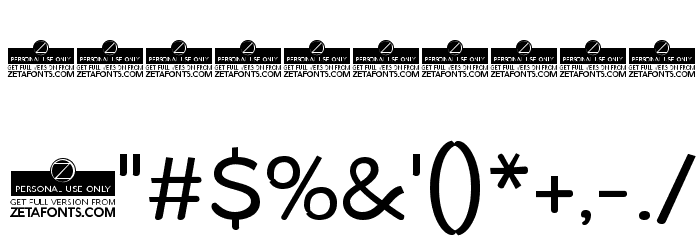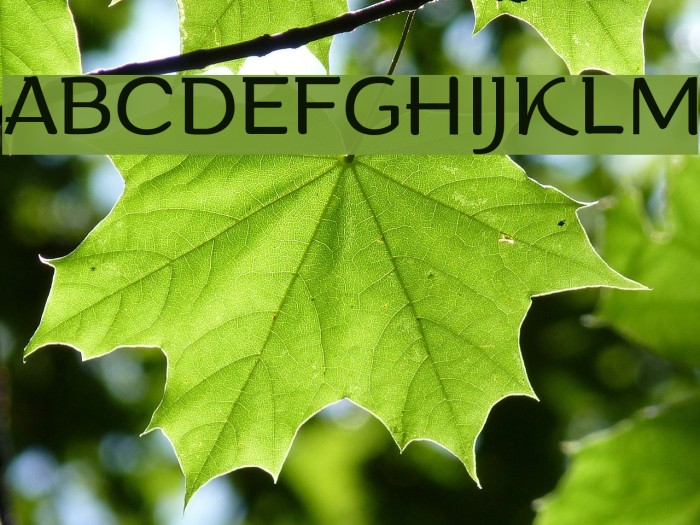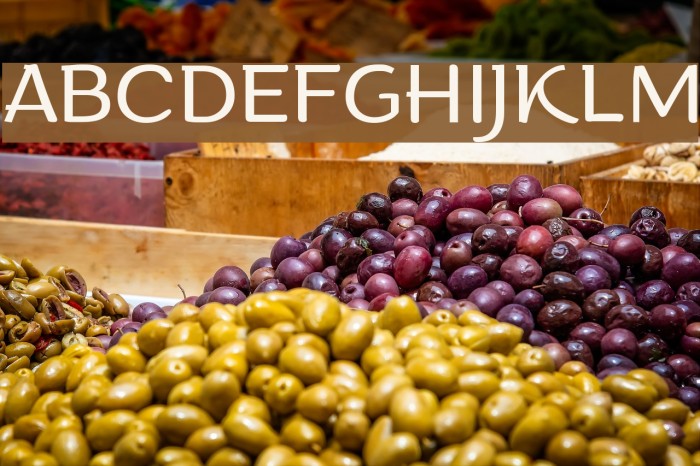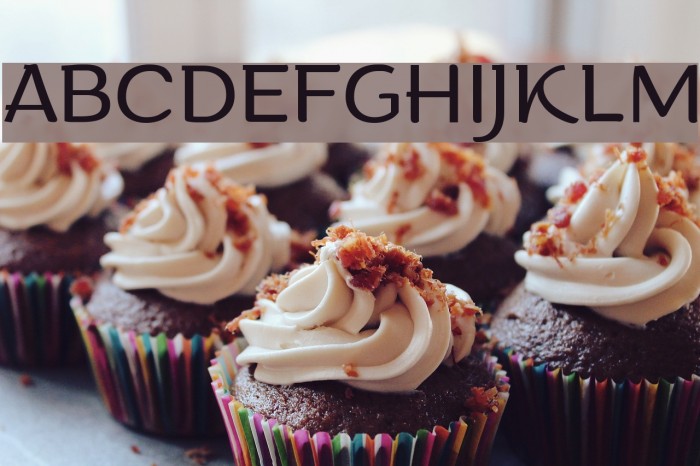
Arturo Trial Light Font
This font presents a clean and modern aesthetic with a subtle elegance. The characters are well-proportioned, featuring smooth curves and a consistent stroke width that gives it a harmonious appearance. The uppercase letters are bold and assertive, while the lowercase letters maintain a friendly and approachable feel. The numerals are clear and easy to read, making them suitable for various applications. The special characters are designed with the same attention to detail, ensuring a cohesive look across all glyphs. This font is versatile, offering a contemporary style that can enhance both digital and print media.
A clean, modern font with smooth curves and consistent stroke width.
- Proposed Projects: Ideal for branding, editorial design, web design, and advertising.